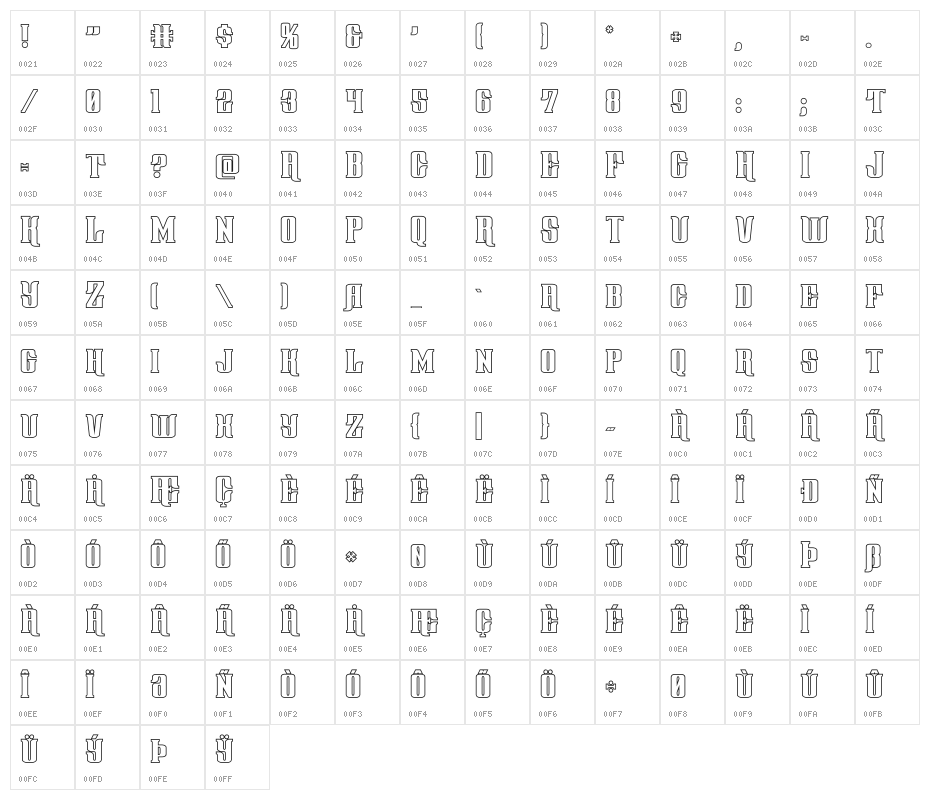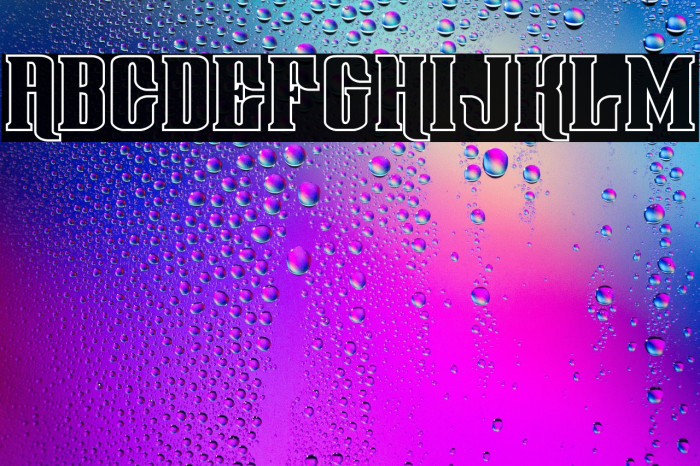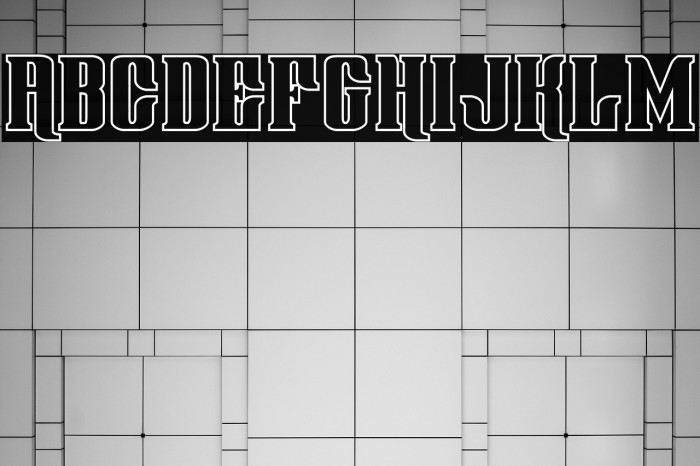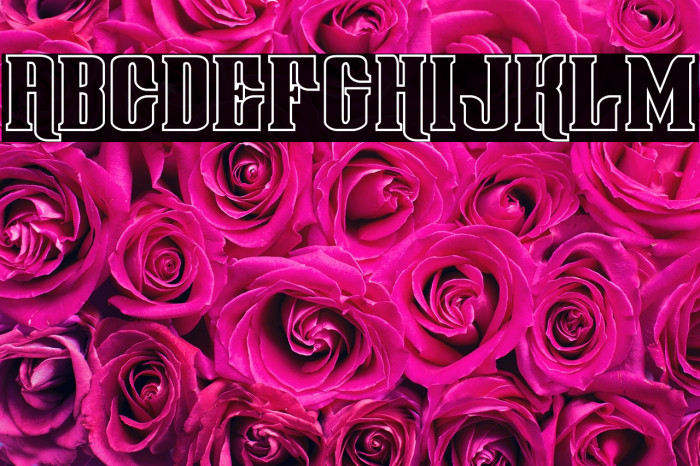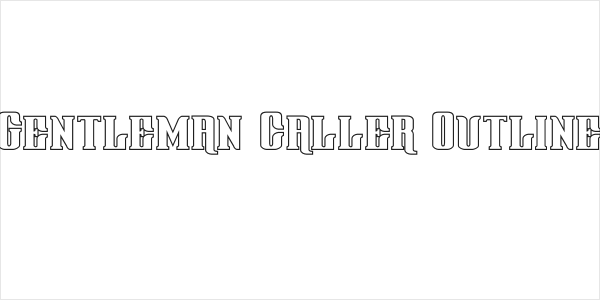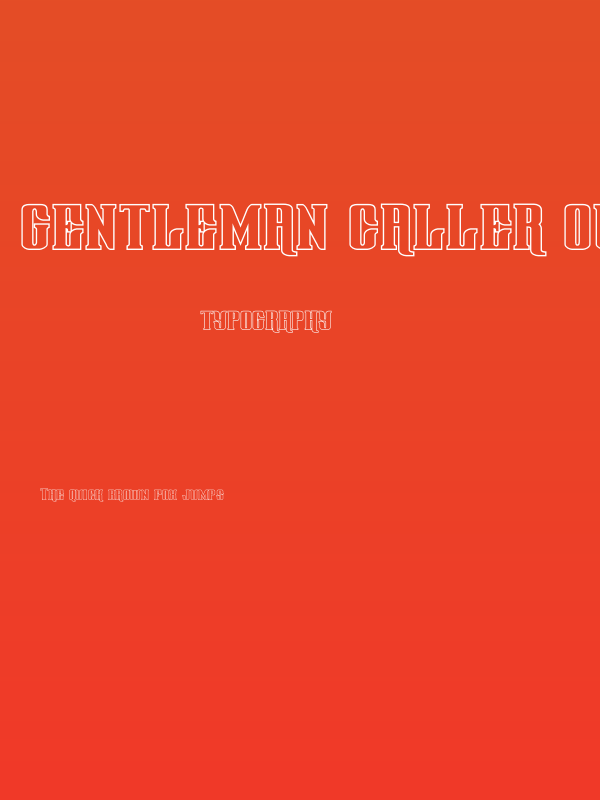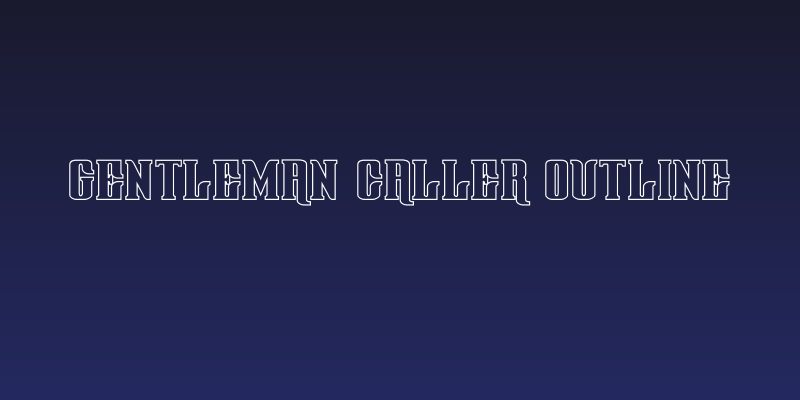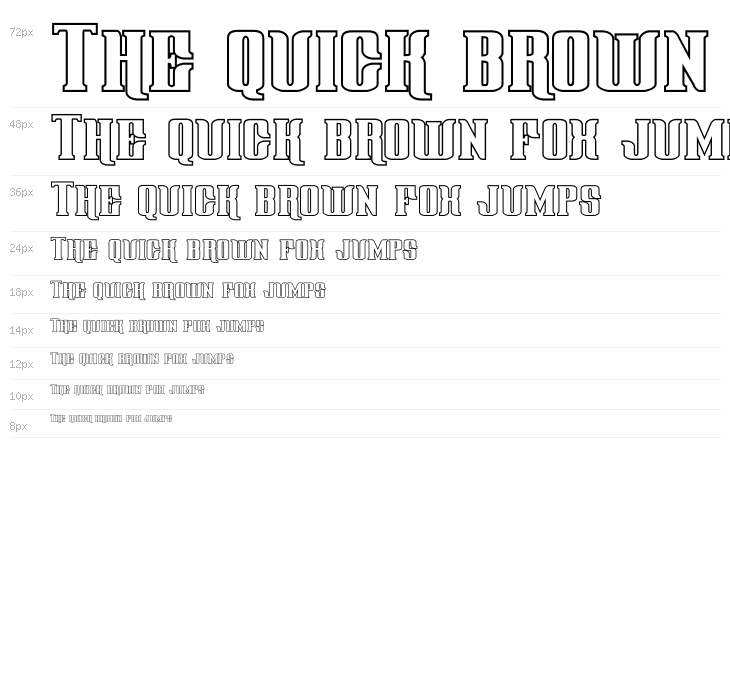
Gentleman Caller Outline Font
Gentleman Caller Outline Description
This font features a bold, outlined style with a strong, decorative appearance. The uppercase letters have a distinct, blocky form with sharp angles and a consistent stroke width, giving them a commanding presence. The lowercase letters maintain the same bold outline, ensuring readability while adding a touch of elegance. Numbers are equally bold and outlined, matching the style of the letters. Special characters are designed with the same attention to detail, making them suitable for various design needs. The overall look is both vintage and modern, making it versatile for different creative projects.
| Overall Style | Vintage, Modern |
| Proposed Projects | Ideal for posters, headlines, logos, and branding materials that require a strong visual impact. |